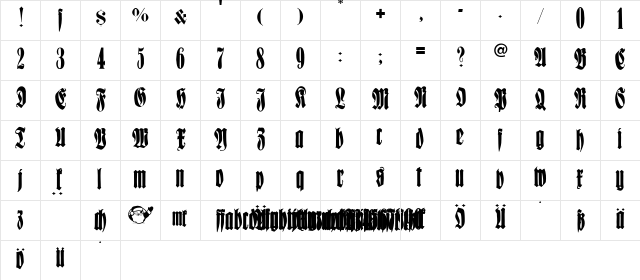
FrakturCondensedHeadlineExtra Regular
Design Context for FrakturCondensedHeadlineExtra Typeface
FrakturCondensedHeadlineExtra draws on the rich tradition of blackletter calligraphy, with dense, angular strokes that evoke medieval manuscripts and old-world craftsmanship.
A natural fit for music packaging, gothic editorial design, and any project that needs historical weight.
Font Pairing: Pair with a clean neutral sans-serif for body copy to let FrakturCondensedHeadlineExtra's character lead without overwhelming the composition.
Pro Tip: Reserve FrakturCondensedHeadlineExtra for display and logo use — pair it with a clean sans-serif for body copy to prevent the composition from feeling oppressive.